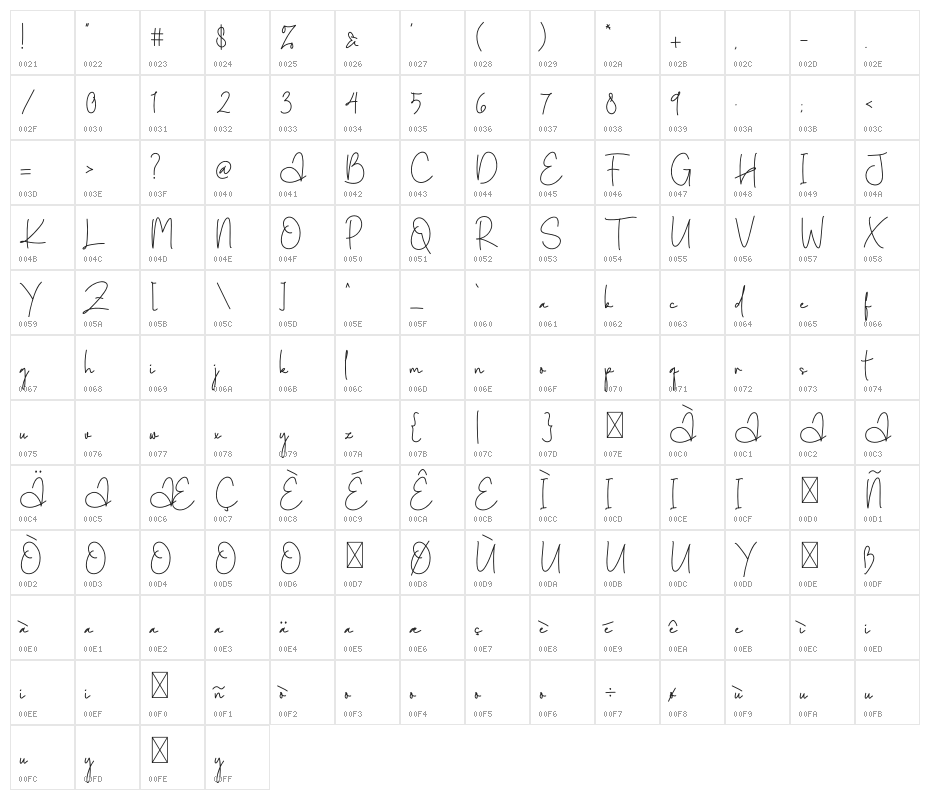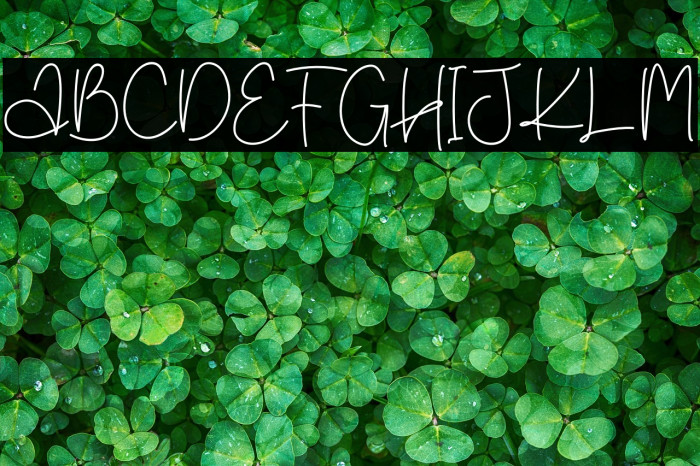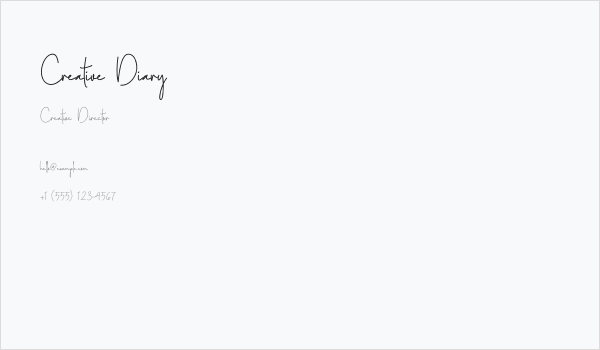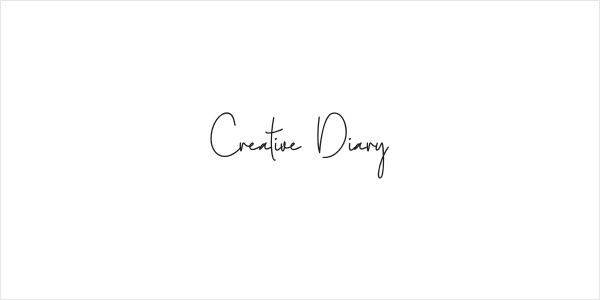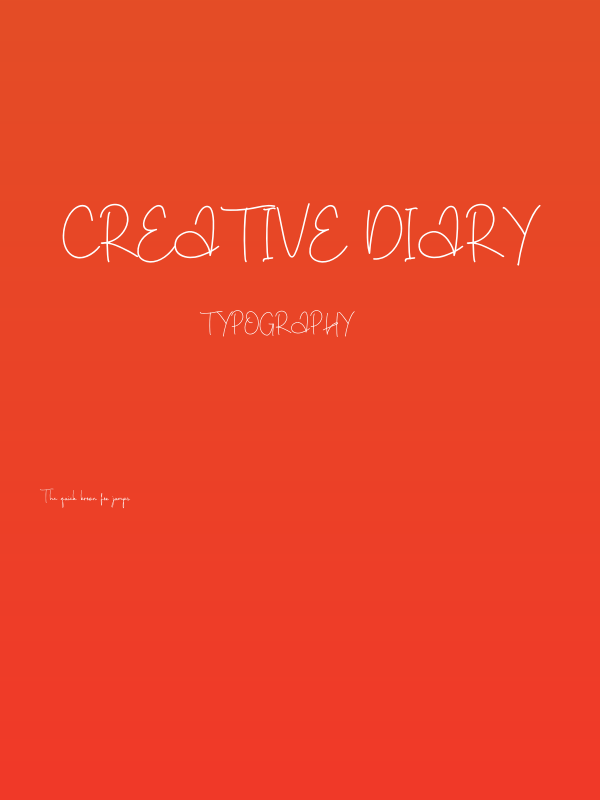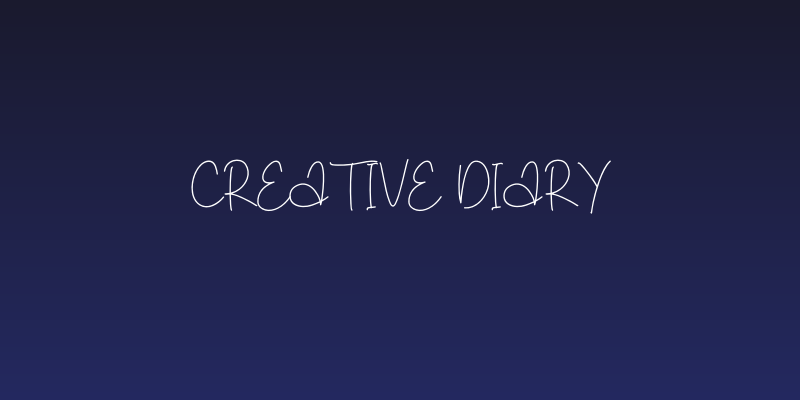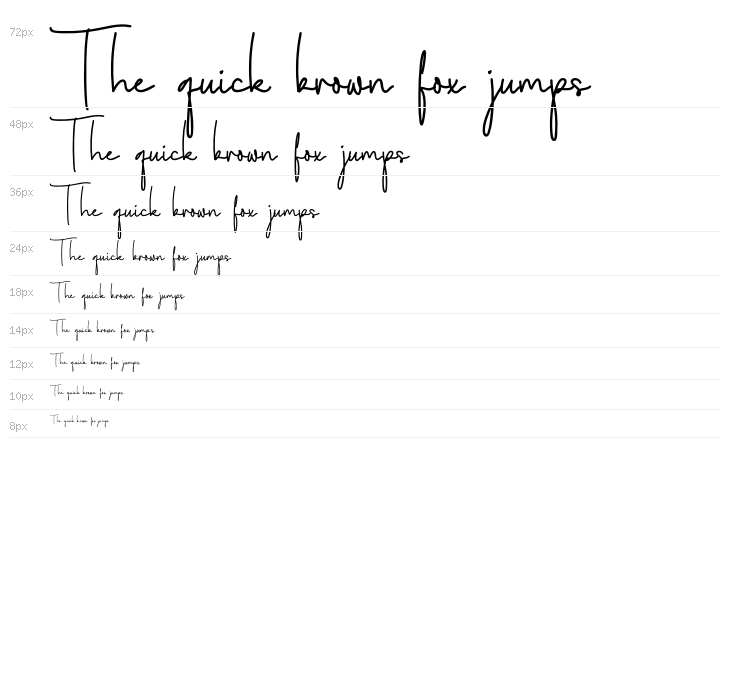
Creative Diary Font
Creative Diary Description
A playful, handwritten script with tall, narrow characters and irregular, organic strokes. The font mimics natural handwriting with a casual, informal feel, featuring variable line thickness and slightly exaggerated ascenders and descenders.
| Width | Condensed |
| Overall Style | Decorative, Casual, Playful |
| Use Case | Headlines, Short text, Personal notes, Decorative elements |
| Proposed Projects | Personal diaries, creative journals, greeting cards, invitations, informal branding, and social media graphics. |